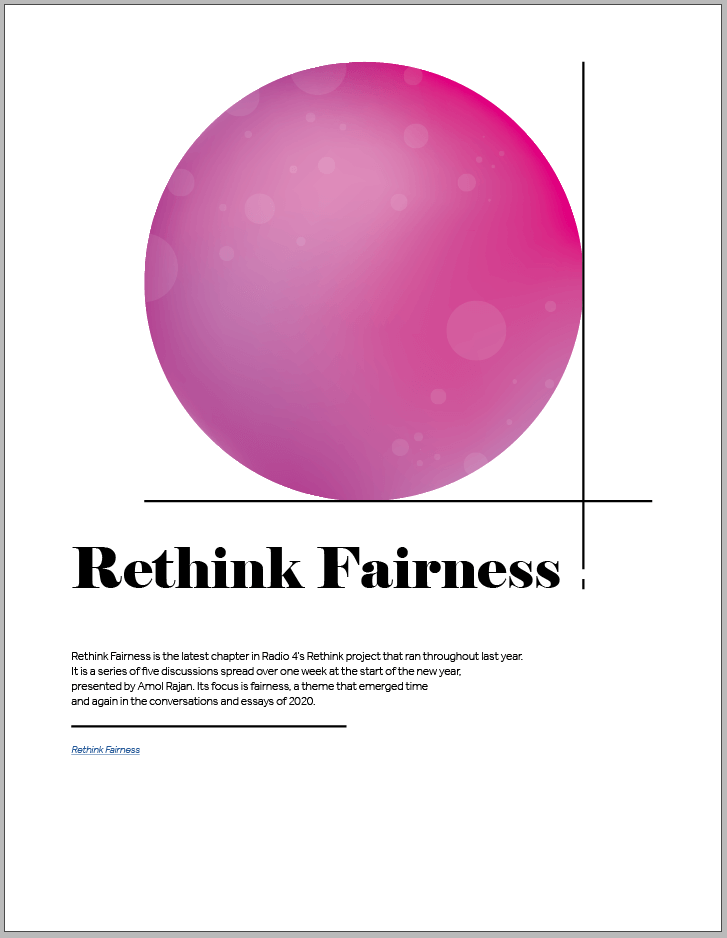
The aim of this project was to create a flyer for a podcast, named ‘Rethink Fairness’, with the given text. It was important to this task to redistribute and organise the given text into understandable sections and then create a hierarchy within the text to allow the styling to match this from the start. After reading through the following link, https://helpx.adobe.com/uk/indesign/how-to/make-flyer.html, I decided upon a design in my head and how I wanted to progress with my flyer design.
My goal through this project was to allow the text itself to stand out and function without too much outside influence from images or graphics, this meant it was important to get typefaces correct and focus on how multiple typefaces might function together. I aimed to bring in a modern, high weight contrast typeface to utilise for headers such that they stood out greatly against the background with some very heavy weights to some parts of the characters, furthermore having a display font as large and centred as I did I felt that it stood out to a user as much as the graphic itself, the typeface being noticeable also felt relevant to the context of the podcast as it has this playful display feel while still involving the serif seriousness. When it came to sub-headers on the second page I felt it important not to overuse the display font as to make the headers illegible, to this extent I combined the two typefaces, reducing the weight of the additional typeface down to allow it to attribute to the thin sections of the high weight contrast display font.
I’d toyed with the idea of utilising physical lines and barriers to section information but, again, with the context of the podcast it felt off-key to introduce barriers and borders onto a podcast flyer focused around thinking outside of the norm, I aimed to represent this by leaving in the lines but adjusting them such that they were broken off and didn’t enclose any one part of the text, this, however, meant that I needed to focus on the layout of the sections within the text to allow them to be legible as separate sections, it became increasingly important to avoid floating heads, and respecting the space between separate and related pieces of information, how these spacings ended up I feel accurately allows the reader to separate the information in their own mind without the need for a numbering system or bounding boxes to section the information.
The centre piece of the flyer I’d aimed to be some sort of contextual representation, I didn’t think an image would function in the same way so, using images typically associated with psychology I created a gradient mesh with lighter bubbles overlayed on top to create an interesting graphic to sit at the front and centre of the flyer, I used this same style to create a few smaller bubbles to sit on and around the text of the second page to create a theme across the whole design and also allow the second page to appear slightly more intriguing, rather than just being flat text.